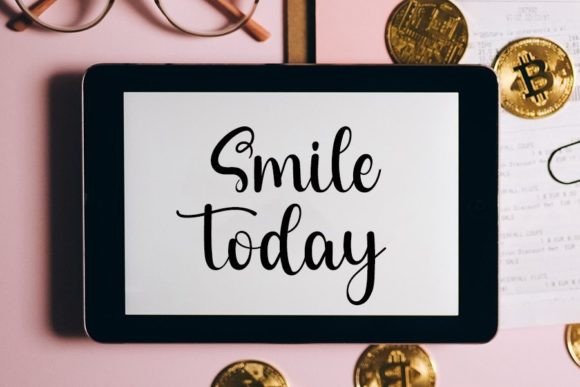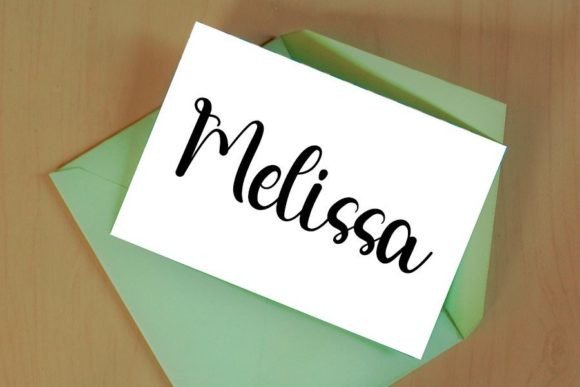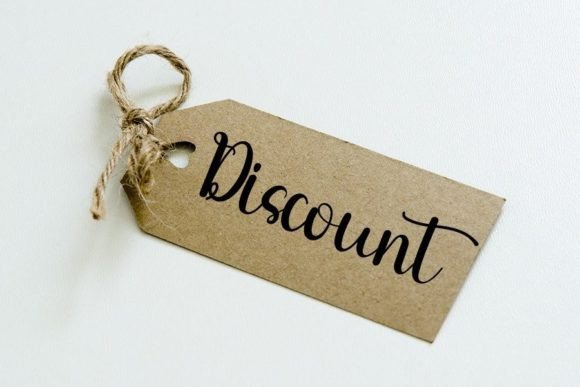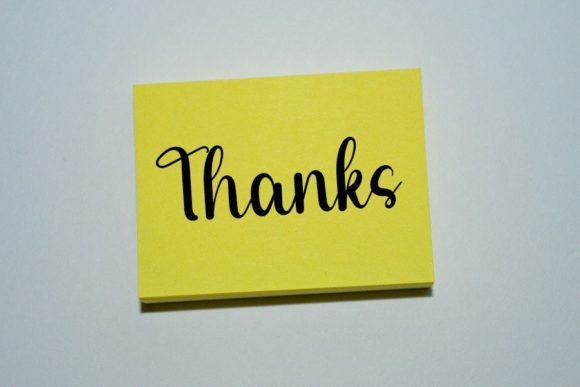
Discover the Elegance of Brother Font: Elevate Your Designs with a Timeless Touch
In the world of typography, few fonts manage to capture the essence of elegance and timelessness. However, the Brother Font stands out as a shining example of a neat and beautiful handwritten font that brings an elegant touch to any project. This incredibly distinct font is not just a typeface; it’s an experience that can transform your designs into spectacular works of art. In this article, we’ll dive deep into the characteristics of the Brother Font, explore its uses, and understand why it has become a favorite among designers and crafters alike.
The Distinctive Charm of Brother Font
Brother Font is more than just a collection of letters; it’s a design statement. Its neat and beautiful handwritten style exudes a sense of sophistication and refinement. The elegant touch that Brother Font brings to the table is unparalleled, making it perfect for projects that demand a high level of aesthetic appeal. Whether you’re working on a branding project, a wedding invitation, or a personal blog, Brother Font can add that extra layer of charm that sets your design apart.
Why Choose Brother Font?
There are several reasons why Brother Font has become a go-to choice for designers and crafters:
- Timeless Style: Unlike trendy fonts that may quickly become outdated, Brother Font boasts a timeless style that will remain relevant for years to come. Its classic appeal ensures that your designs don’t just look good now but will also stand the test of time.
- Versatility: Brother Font is incredibly versatile. It can be used in a variety of projects, from digital designs like websites and social media graphics to print materials such as brochures, posters, and business cards. Its adaptability makes it a valuable addition to any designer’s toolkit.
- Elegant Touch: The font’s elegant touch can elevate the aesthetic of any project. It’s particularly well-suited for designs that require a touch of sophistication and grace, such as luxury brand logos, high-end product packaging, and wedding-related stationery.
- Distinctiveness: In a sea of generic fonts, Brother Font stands out due to its distinct and unique style. It can help your brand or project gain a distinctive identity that captures attention and leaves a lasting impression.
Using Brother Font in Your Projects
Incorporating Brother Font into your designs is straightforward. Here are some tips to make the most out of this beautiful font:
- Pair it Wisely: When using Brother Font, consider pairing it with complementary fonts that enhance its elegance. A sans-serif font for headings and a serif font for body text can create a balanced and visually appealing design.
- Play with Sizes: Don’t be afraid to experiment with different font sizes. Using Brother Font in various sizes can add depth and hierarchy to your design, making it more engaging and easier to navigate.
- Emphasize Details: The beauty of Brother Font lies in its details. Pay attention to the subtle variations in line width and the elegant curves of the letters. These details can add a level of sophistication to your design that’s hard to achieve with more basic fonts.
Brother Font is a beautiful handwritten font that brings an elegant touch to any project. Its timeless style, versatility, and distinctiveness make it a valuable asset for designers and crafters looking to create spectacular designs. Whether you’re aiming for a classic look or simply want to add a touch of elegance to your work, Brother Font is an excellent choice. With its ability to transform ordinary designs into extraordinary ones, Brother Font is sure to leave a lasting impression on your audience. So, fall in love with its charm and use it to elevate your designs to new heights of aesthetic excellence.
Embrace the elegance of Brother Font and discover how it can become an integral part of your design journey, helping you to create works that are not only visually stunning but also timeless.